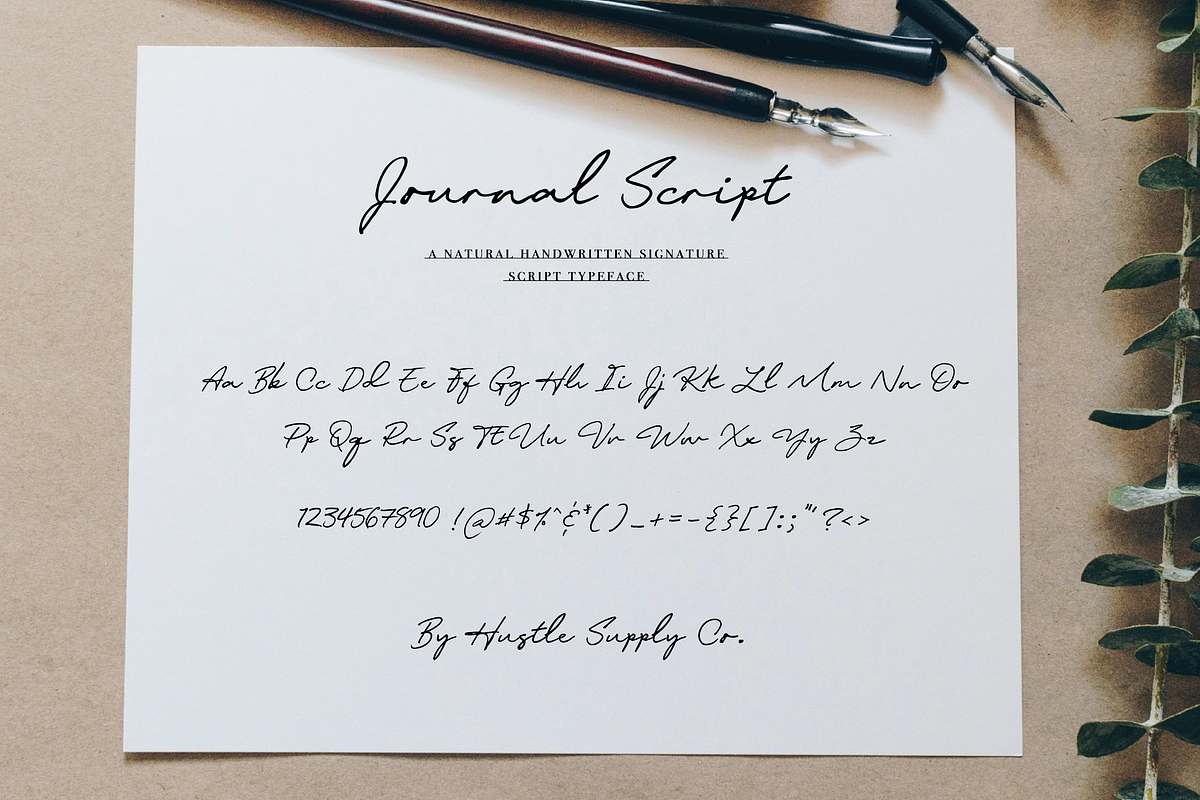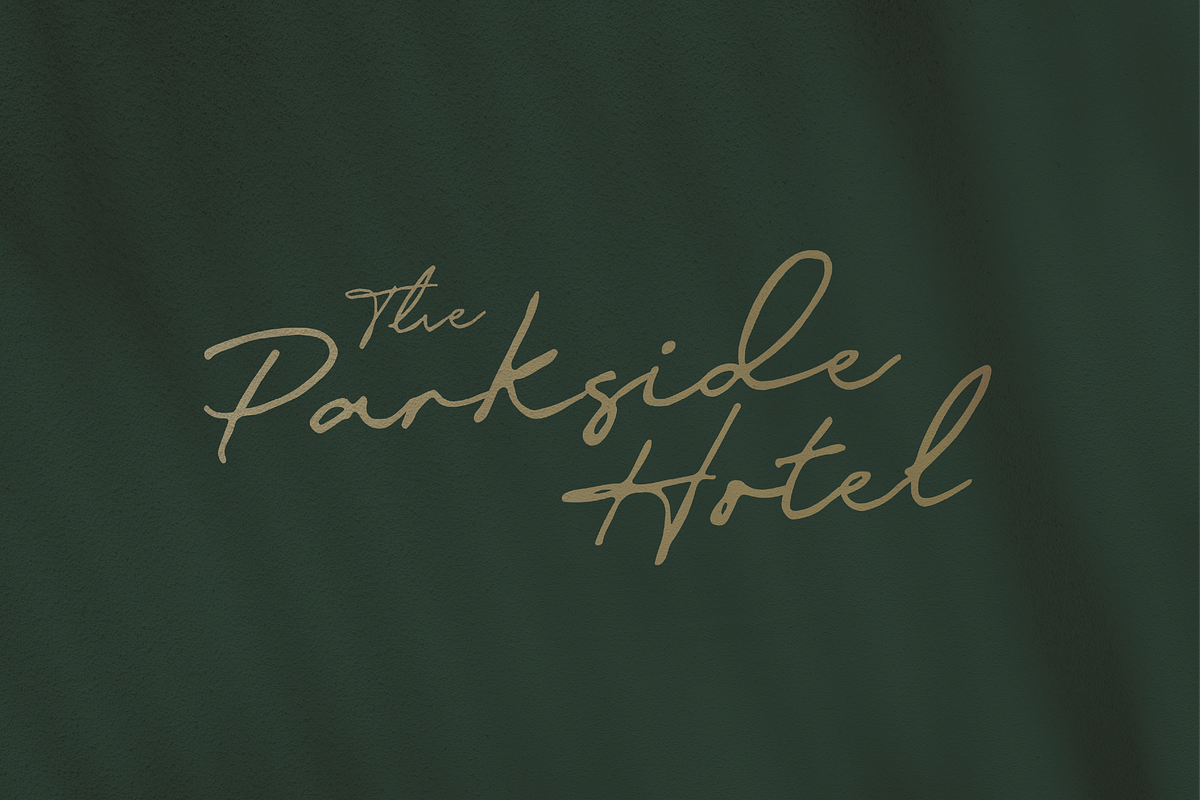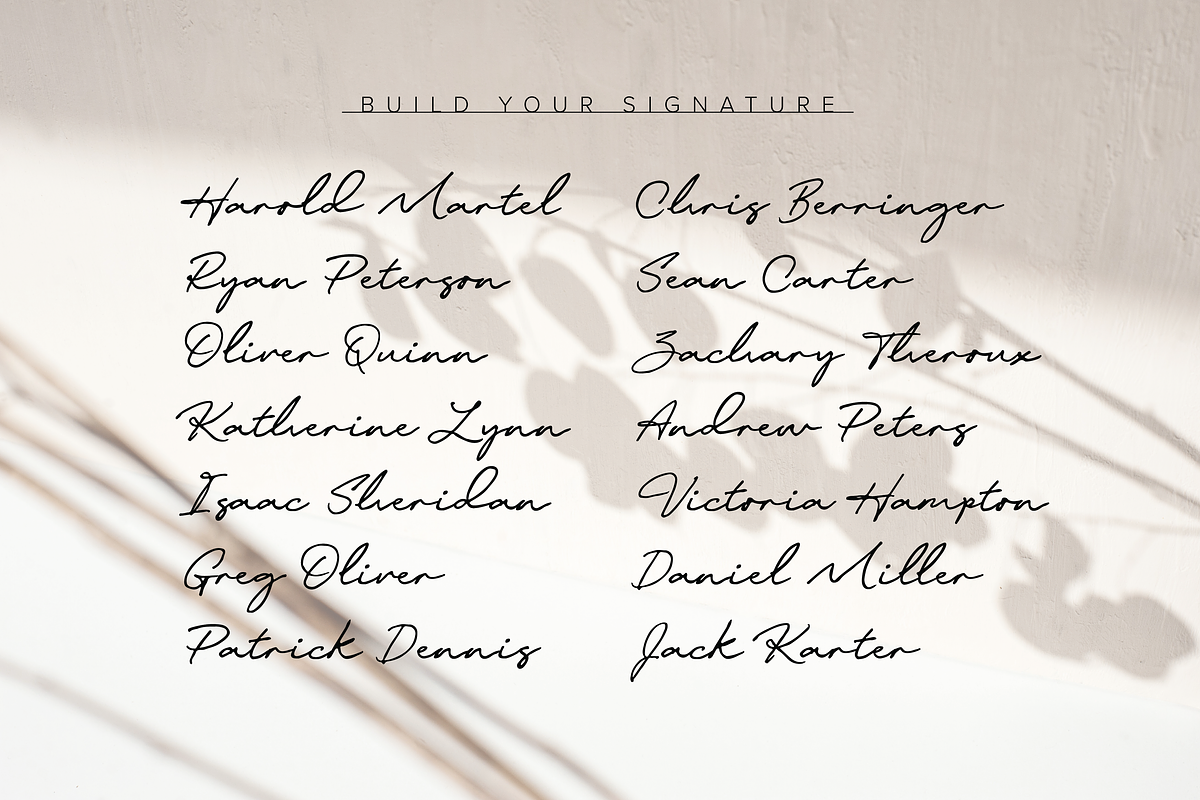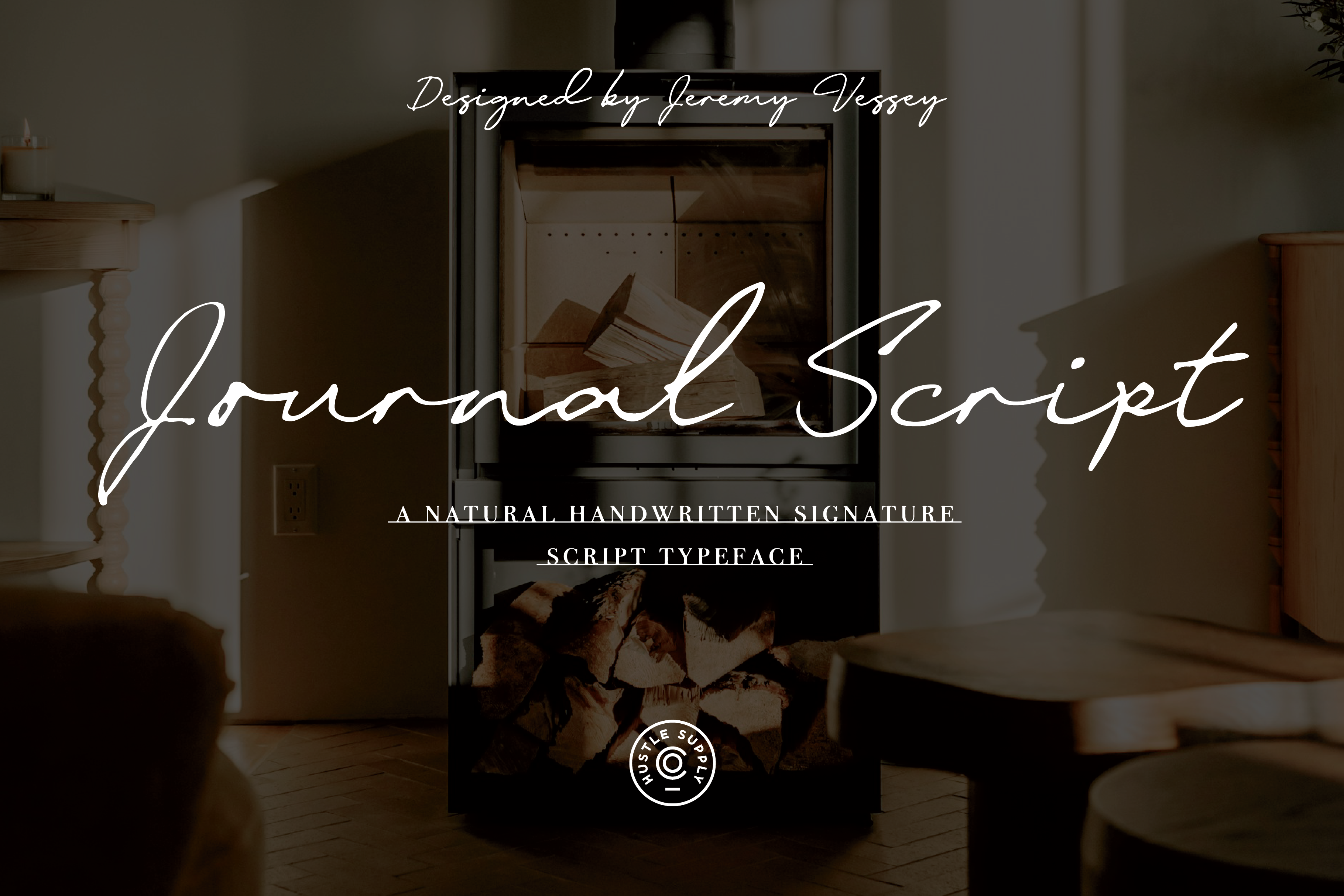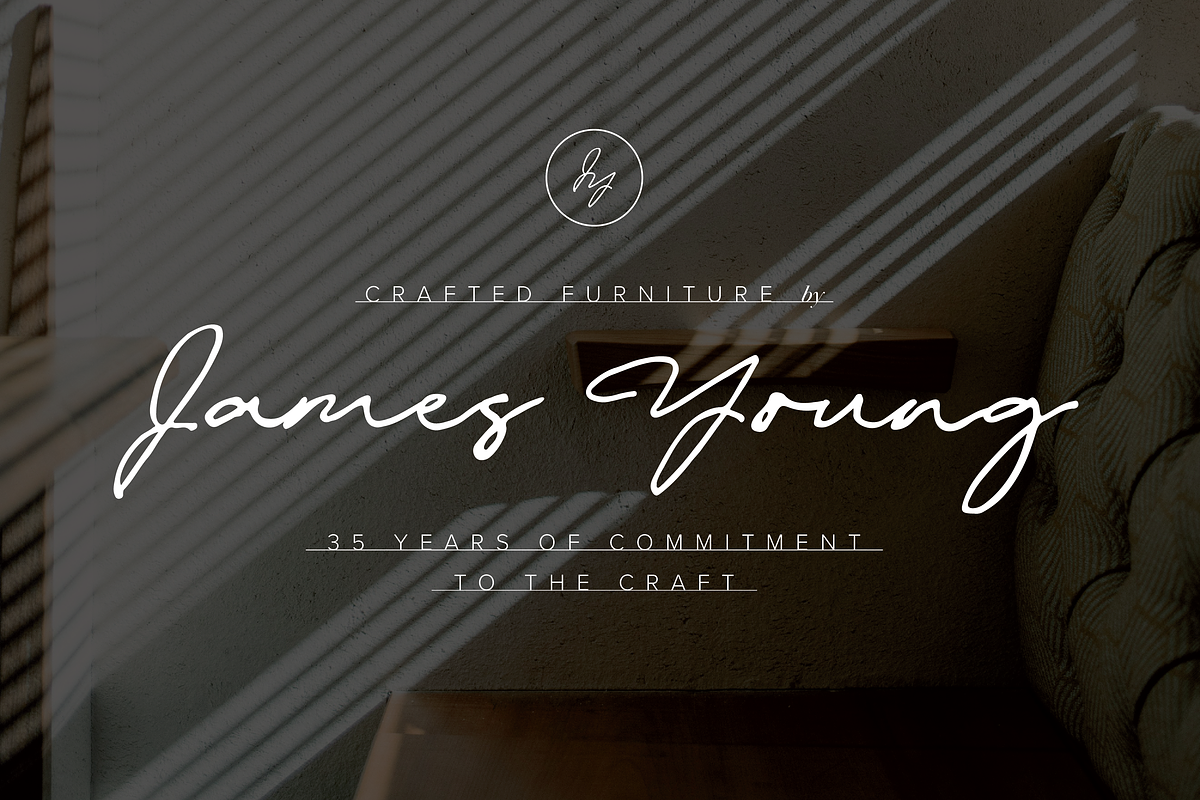
Journal Script | A Signature Font
Journal Script
A beautifully natural handwritten font that flows effortlessly, adding an organic touch to your designs. Ideal for logos, product packaging, or social media, this script captures the authentic look of real handwriting.
Its smooth, flowing strokes create a truly personal feel in every letter.